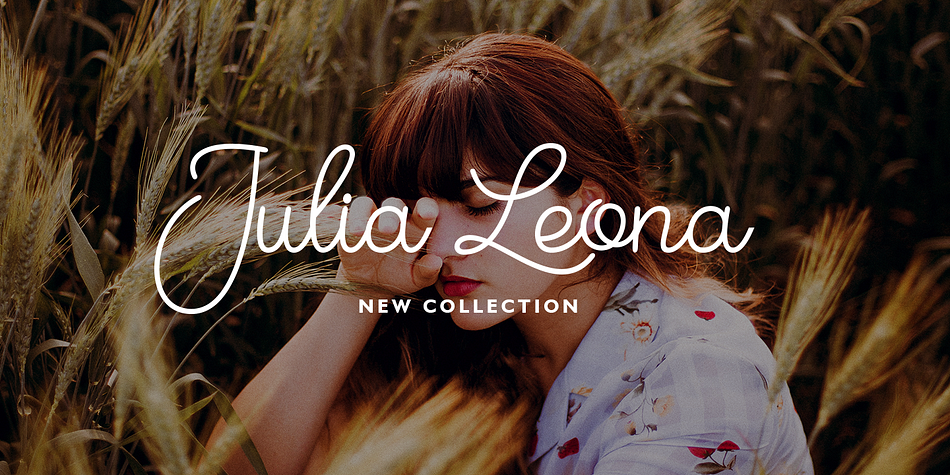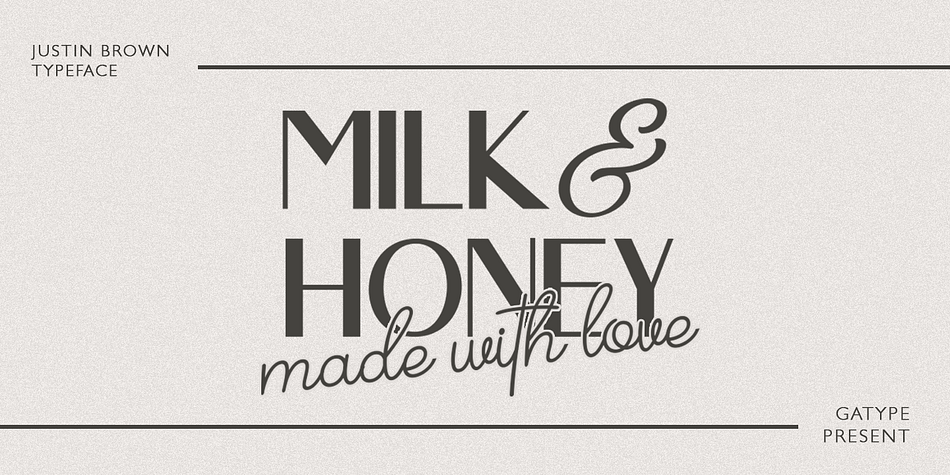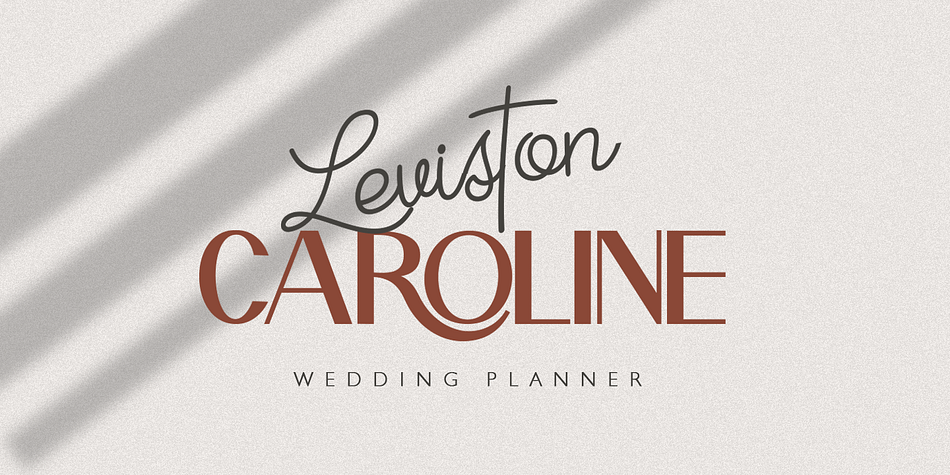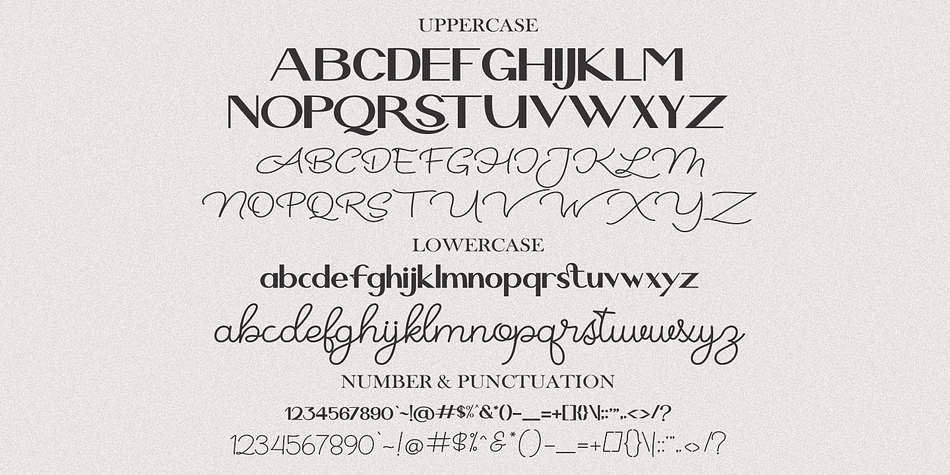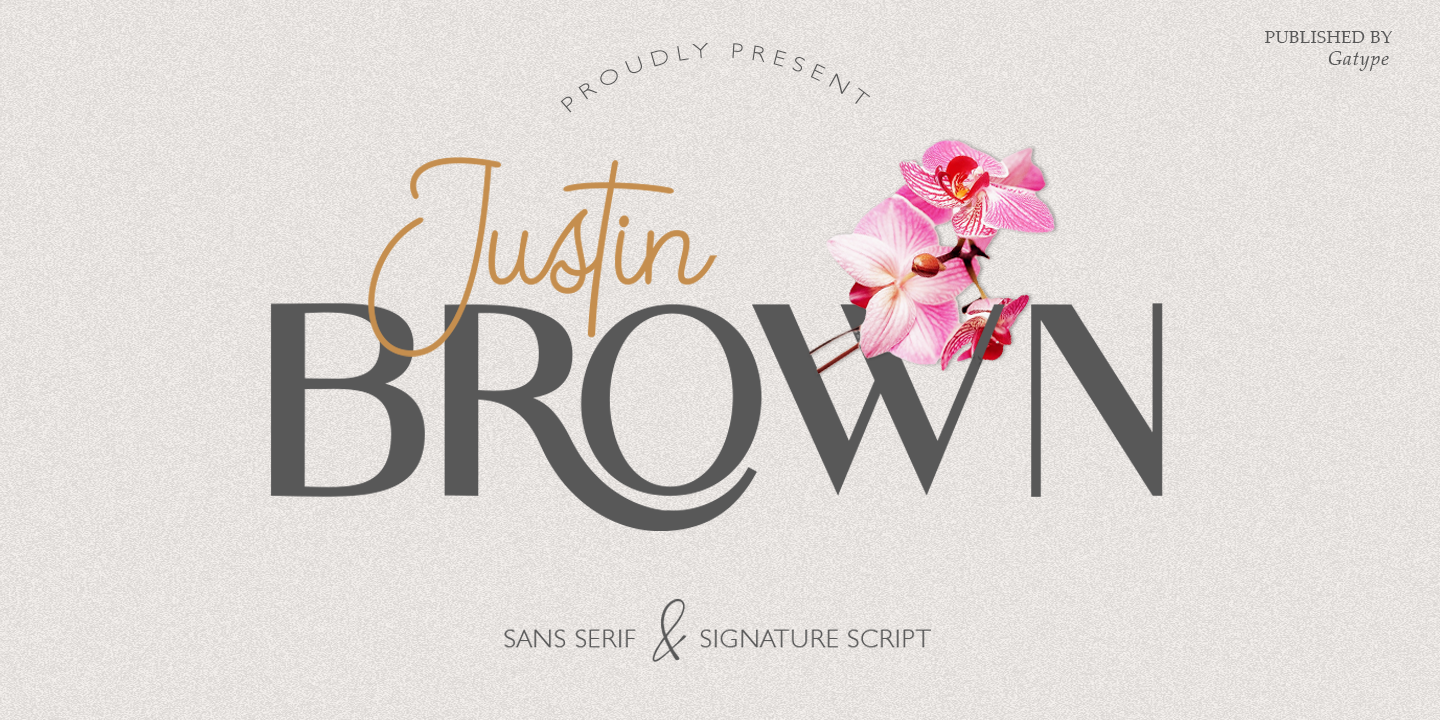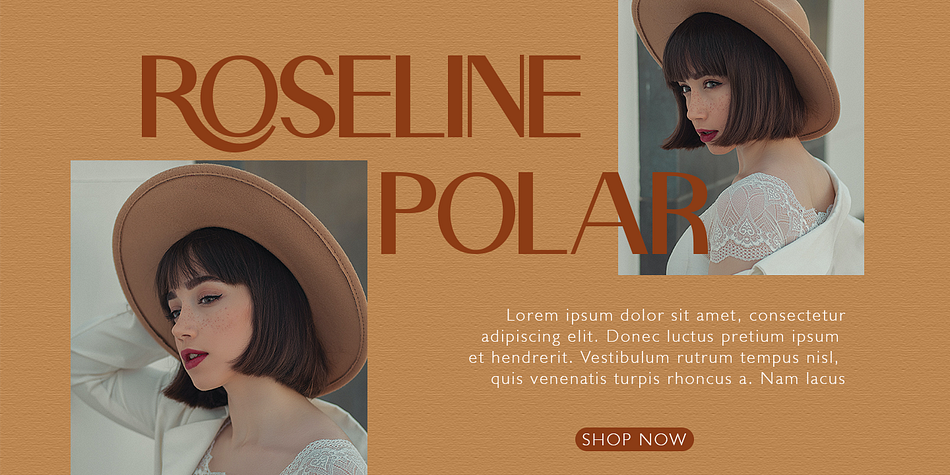
Justin Brown
Justin Brown is a display sans, hand drawn and script font family. This typeface has two styles and was published by Gatype.
Justin Brown is a Sans Serif Display Font with a modern, classy, fun, unique and versatile style. It looks amazing on any screen size and is easy to read in any text size. This font also has tons of unique alternatives and binders that will make for stunning design projects. This will add a fun and friendly touch to any of your projects. This font is PUA encoded which means you can access all the glyphs and sweeps easily and more.